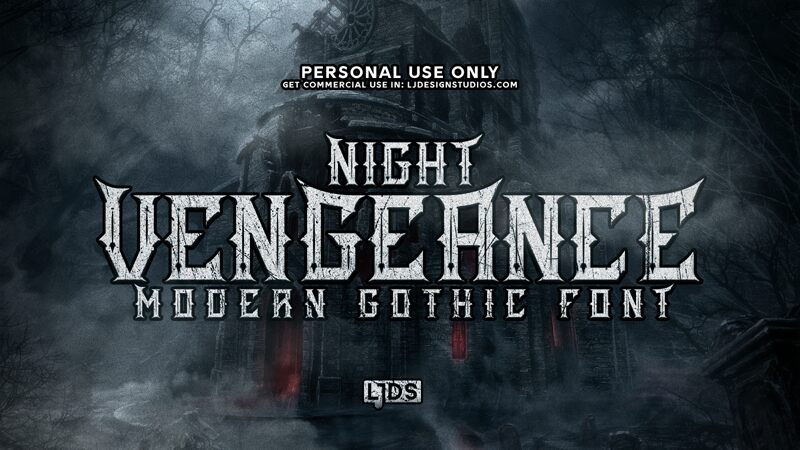
Night Vengeance emerges from the creative mind of Luis Jaramillo at LJ Design Studios, offering a semi-bold and semi-condensed presence that commands attention. This modern gothic font, with its roots in The Darkest Night design, carries an air of confidence and definitive character-ideal for making a statement. Tailored to resonate with the boldness of band titles, especially within darker musical genres, Night Vengeance encapsulates the essence of an enigmatic persona.
Its distinctive style not only suits the music industry but also stands out in branding, poster design, and any project seeking to infuse a sense of mystique and power. With Night Vengeance as your typographic ally, your message is not just seen; it's felt with the intensity it deserves.